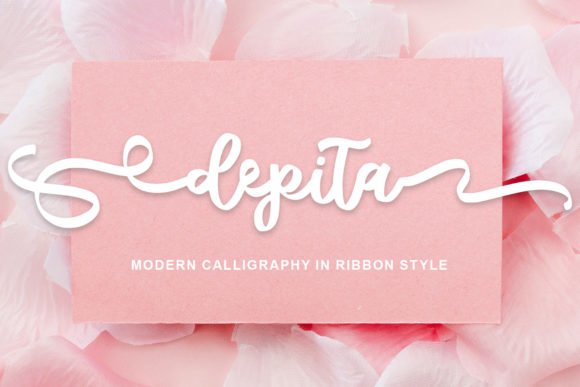
Introduction to Depita Font
Depita is a unique script font made in a ribbon style.
A little bit quirky, this font looks incredibly adept on a wide variety of contexts This font is PUA encoded which means you can access all of the glyphs and swashes with ease.